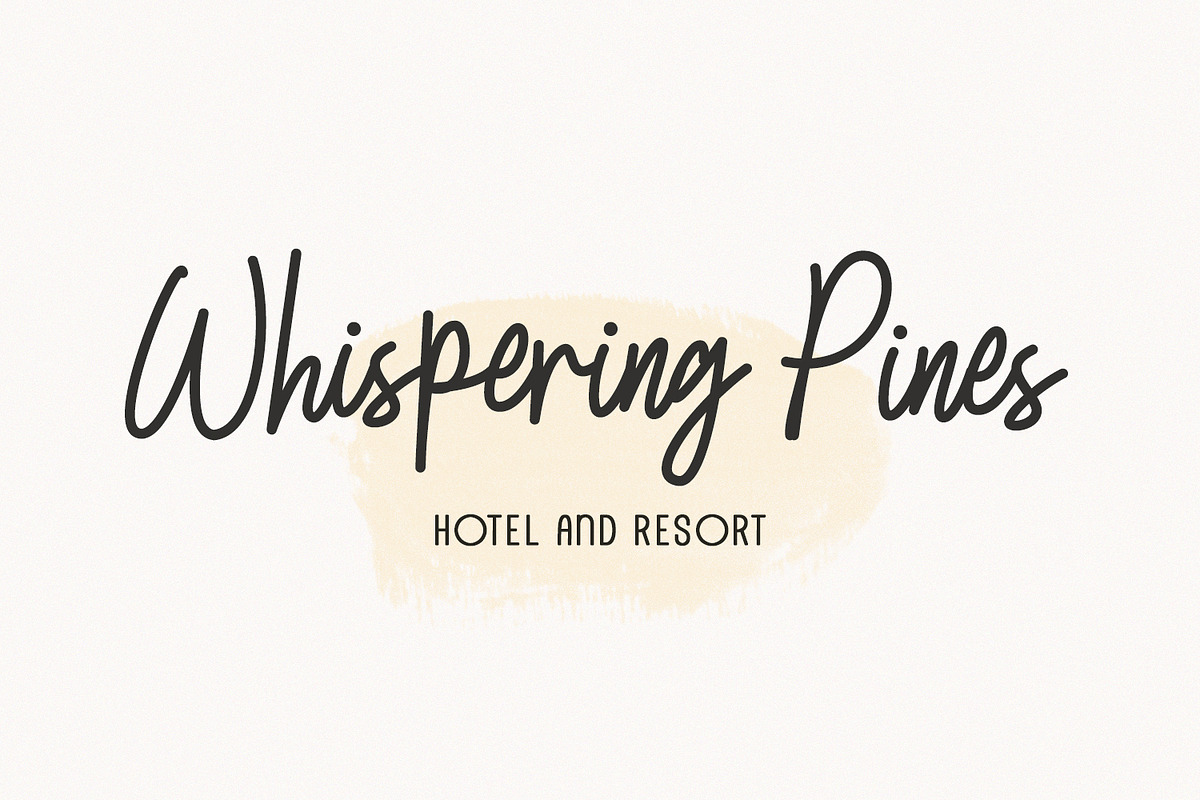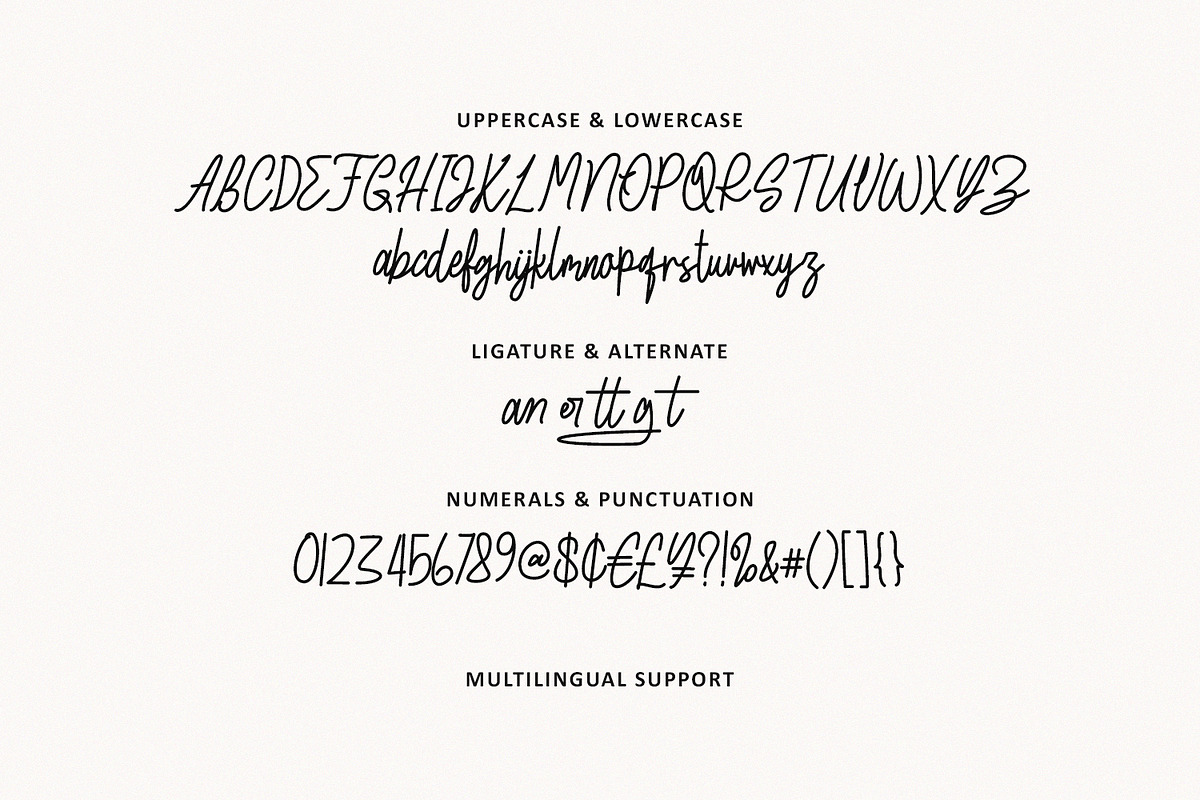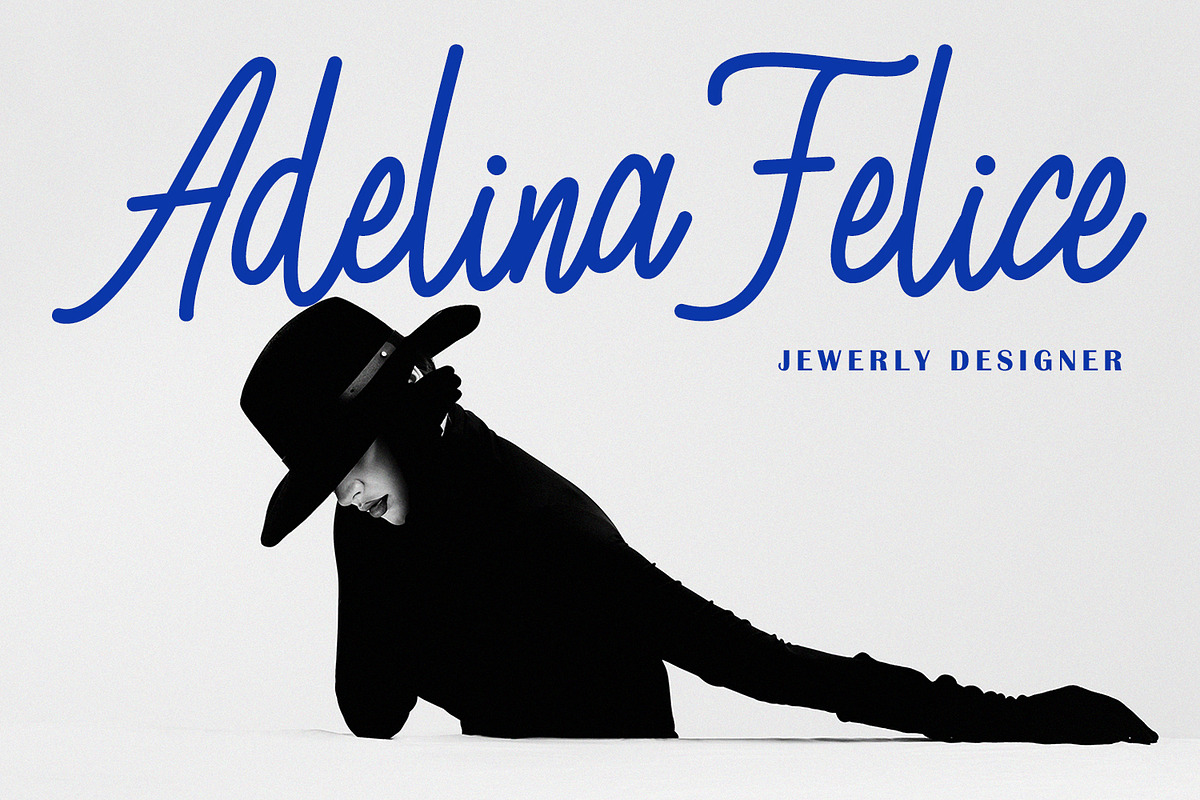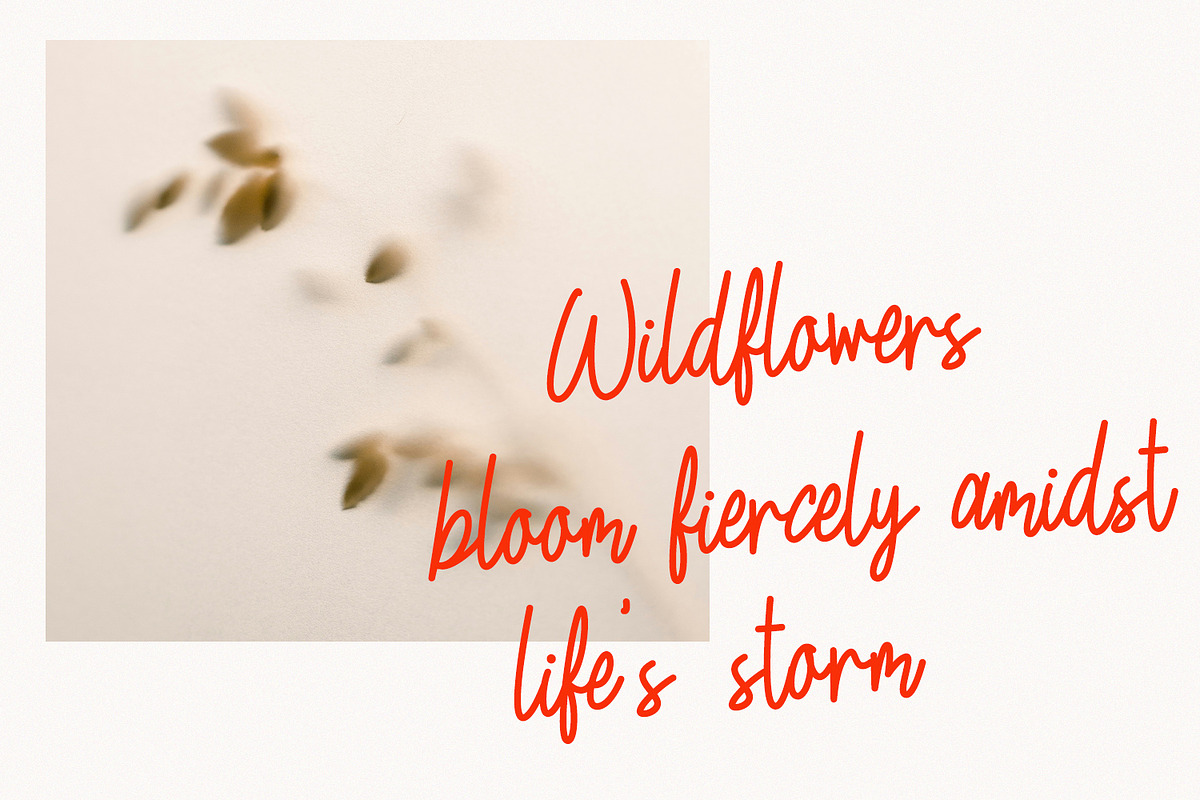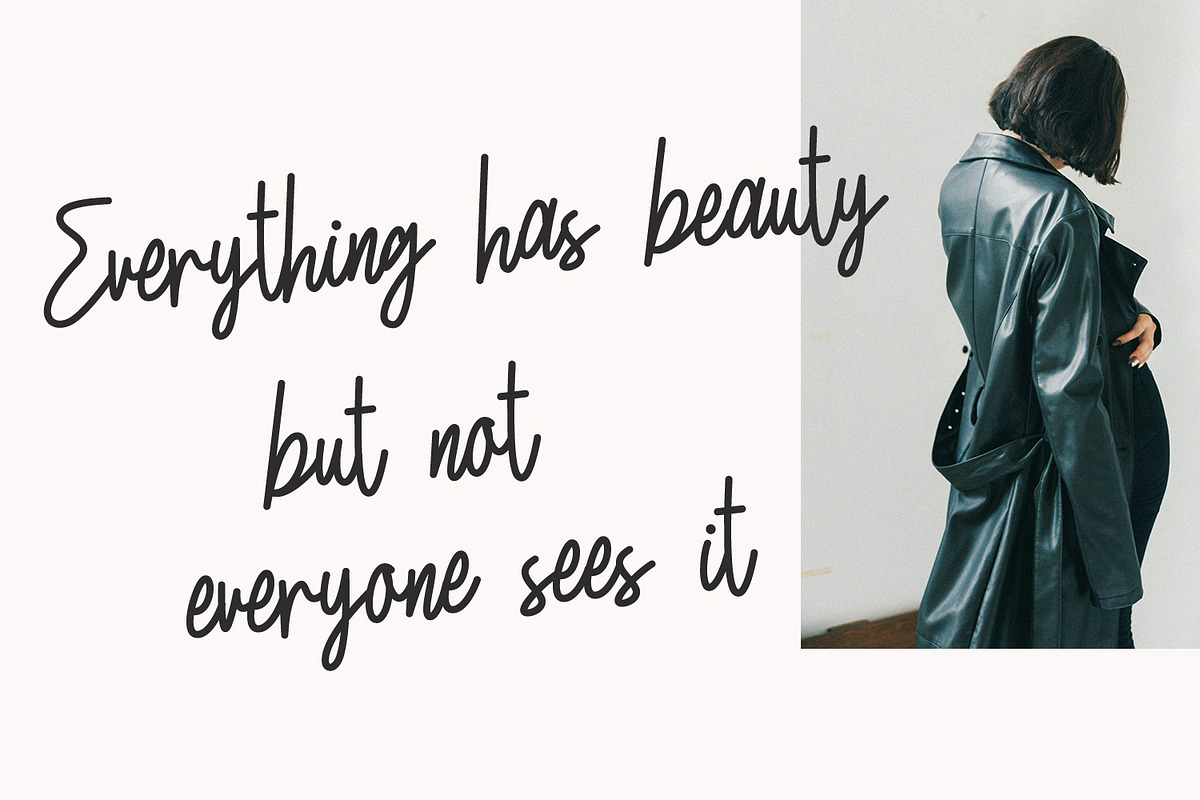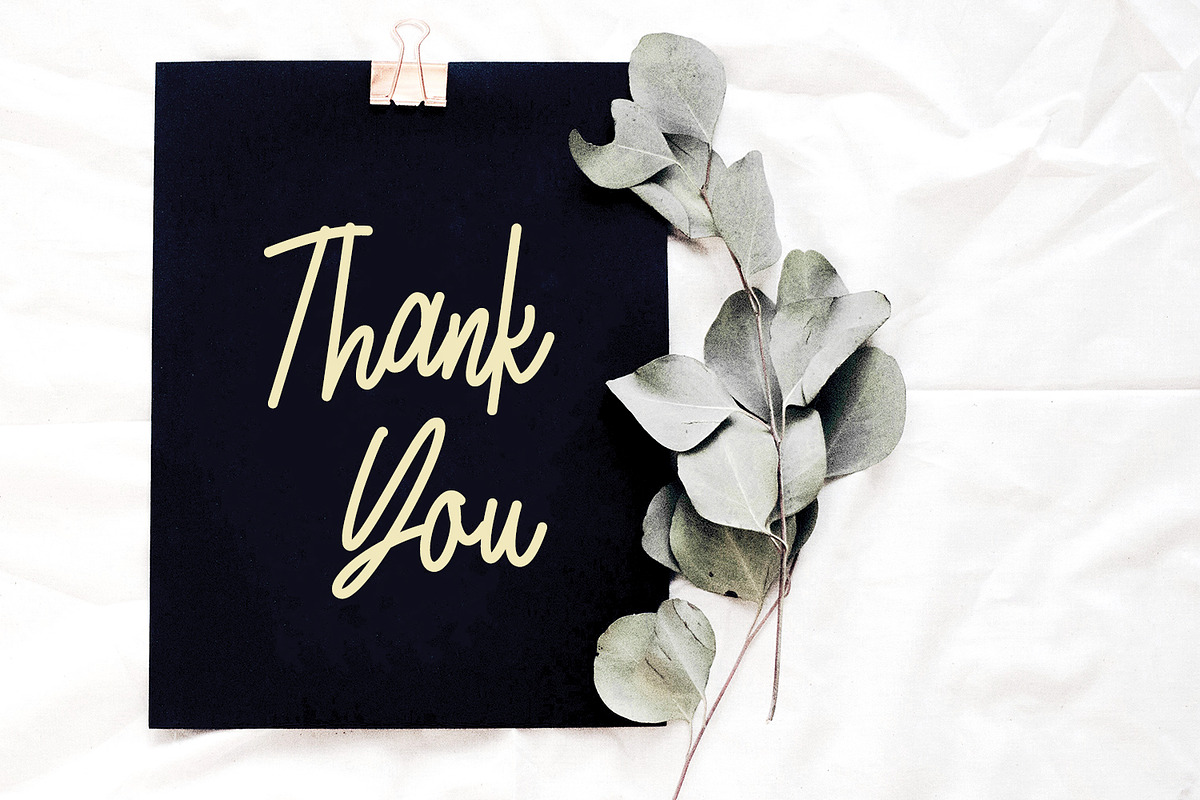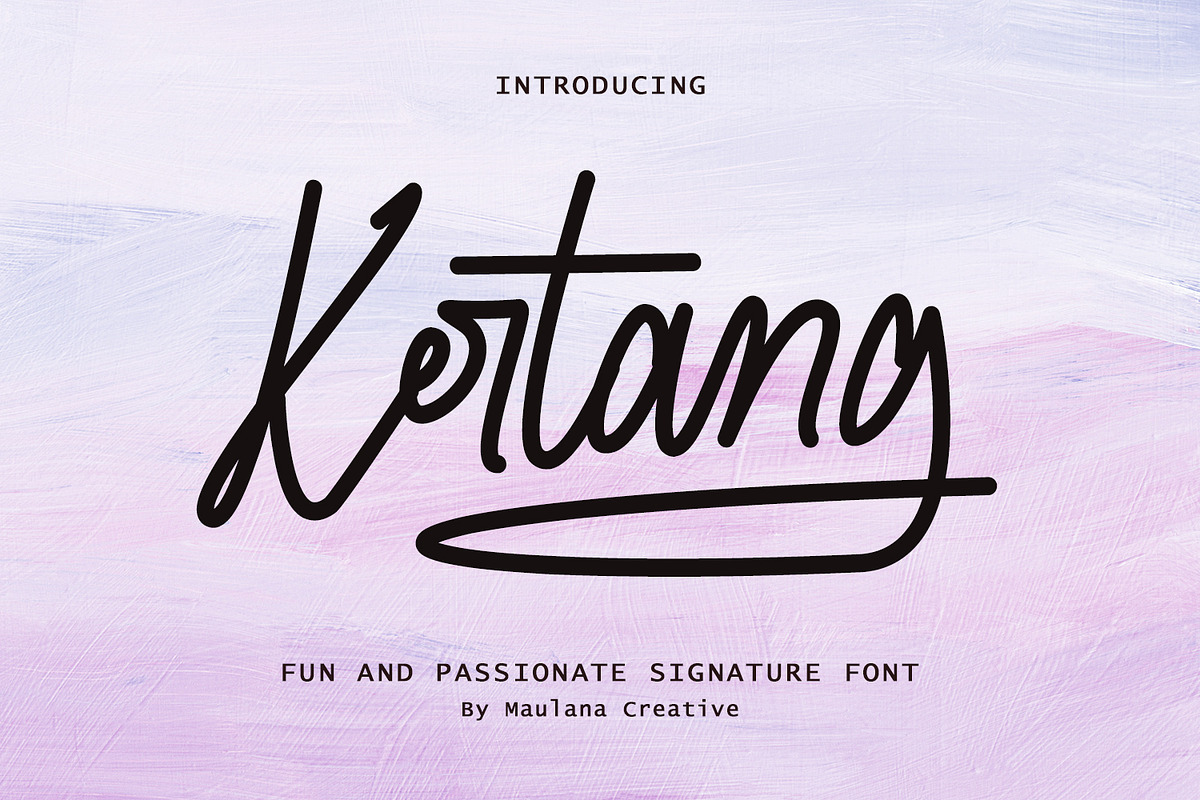
Kertang Elegant Monoline Signature
Kertang is a sophisticated monoline signature font designed to bring a touch of personal flair and "passionate" energy to your creative projects. Crafted with smooth, consistent strokes and a natural flow, this font mimics authentic handwriting, making it perfect for high-end branding, fashion editorials, and modern invitations.
Whether you are designing a luxury logo, a chic business card, or social media quotes, Kertang provides a clean yet expressive aesthetic that stands out. It comes packed with ligatures and alternates to ensure your typography looks custom-made every time.
- Complete Character Set: Uppercase, Lowercase, Numerals, and Punctuation.
- Ligatures & Alternates: Natural-looking connections for a true hand-drawn feel.
- Multilingual Support: Works across various languages for global reach.
- Versatile Style: Ideal for logos, weddings, photography watermarks, and stationery.